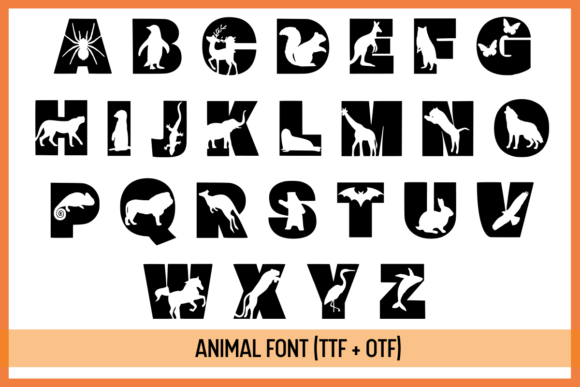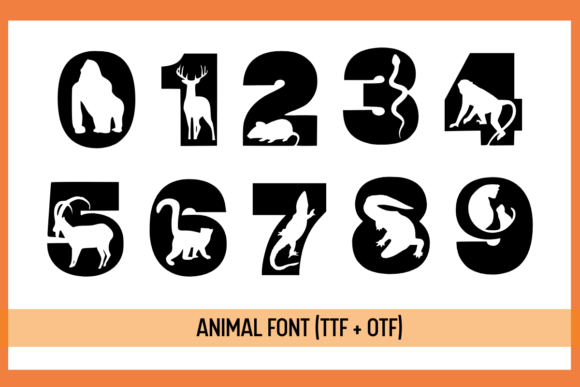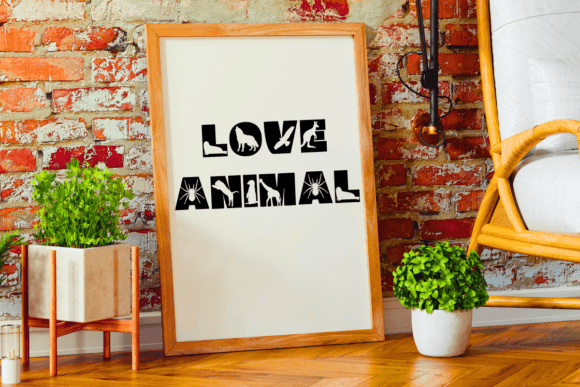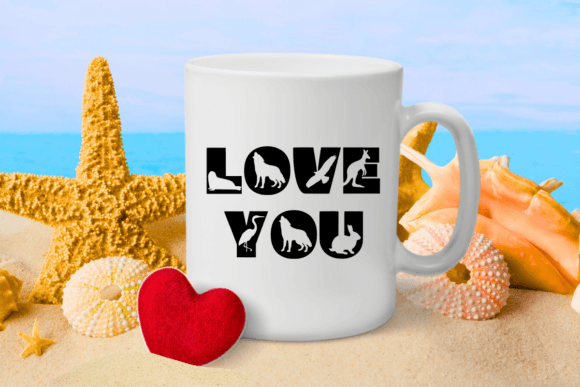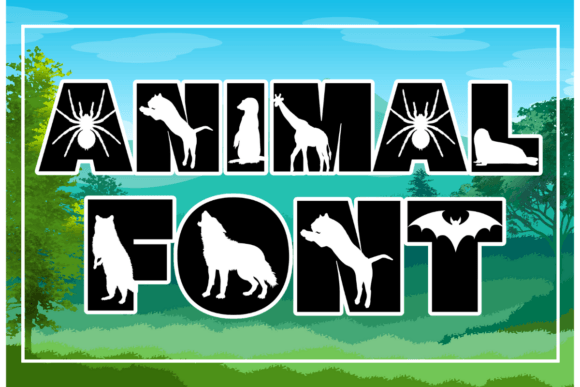
The Wild Side of Typography: A Deep Dive into the Animal Font
I’ll never forget the time I was working on a fun project for a children’s birthday party invitation. I wanted to create something that would make the kids (and let’s be honest, the adults too) excited and playful. As I scrolled through my font library, I stumbled upon the “Animal” font – a bold, quirky font filled with silhouettes of various animals. It was love at first sight! ✨
Each letter was creatively filled with the shapes of different creatures, making it perfect for projects that need a lively and playful touch. I knew right then and there that I had to share this fantastic find with fellow designers, crafters, and creative hobbyists.
- ✨ Unique and playful design that’s sure to grab attention
- ✅ Easy to read, even in larger or smaller sizes
- ✅ Works well for both digital and print projects
- ✅ Can be used for a wide range of creative applications, from invitations to posters
While the Animal font is amazing, there are a few things to keep in mind: 🤔
- ⚠️ It may not be the best choice for very formal or professional projects, as it can come across as too playful
- ⚠️ Some letters may be a bit tricky to read if you’re not used to the animal silhouettes
Exploring OpenType Features, Glyphs, and Stylistic Alternates
The Animal font comes with a range of OpenType features, glyphs, and stylistic alternates that can help you get the most out of this font. Here are a few tips:
- Experiment with different glyphs to add more variety to your text
- Use stylistic alternates to create a more customized look
- Take advantage of OpenType features like ligatures and swashes to add more flair to your text
The Story Behind the Animal Font
The Animal font was designed by a creative team that wanted to bring a touch of whimsy and fun to the world of typography. Inspired by the beauty and diversity of the animal kingdom, they set out to create a font that would make people smile. And with its unique blend of bold typography and playful animal silhouettes, it’s no wonder the Animal font has become a favorite among designers and crafters.
Q: Is the Animal font suitable for children?
A: Absolutely! The Animal font is a great choice for children’s projects, such as books, posters, and invitations.